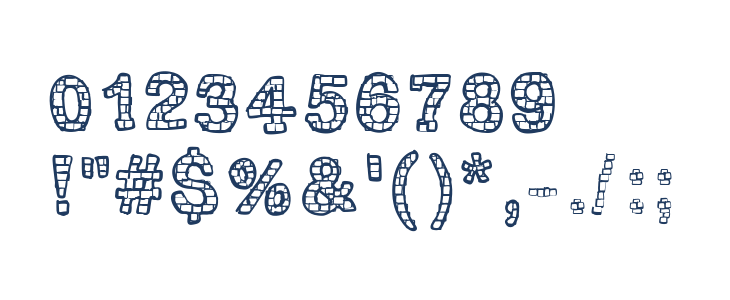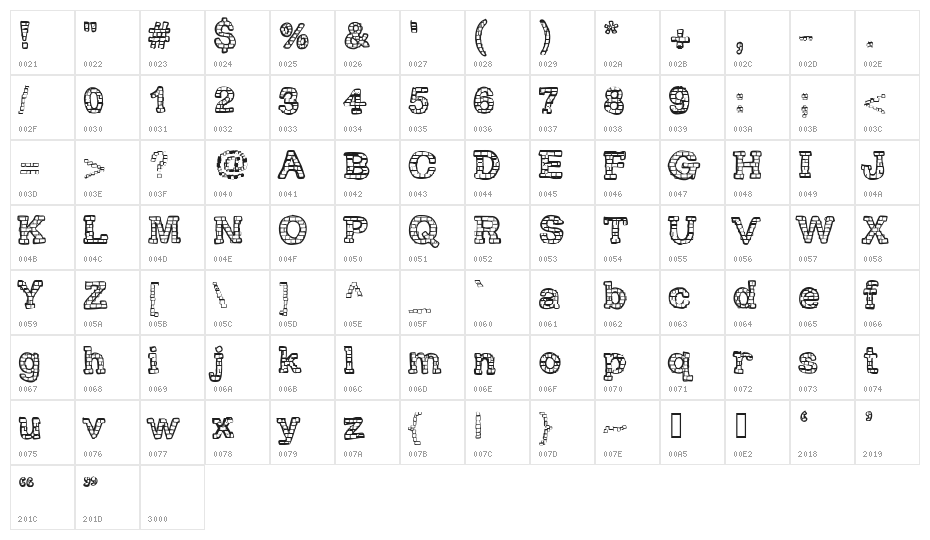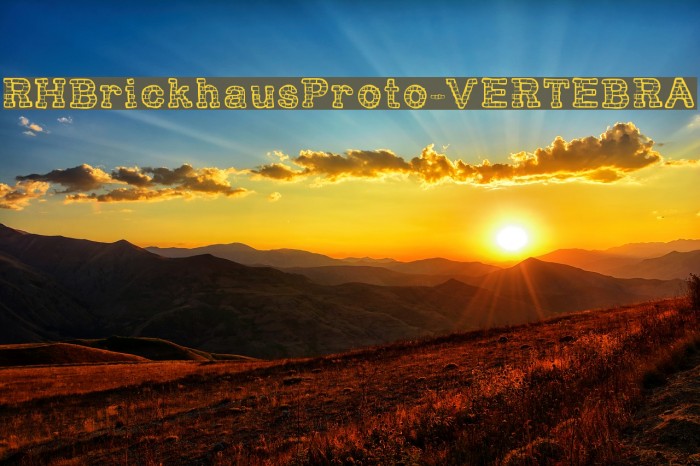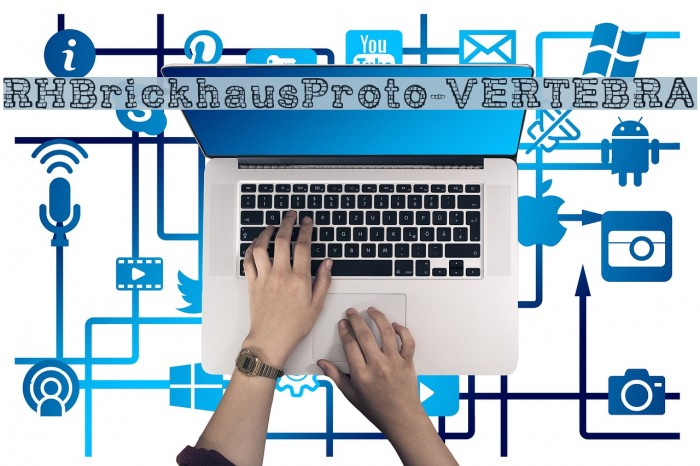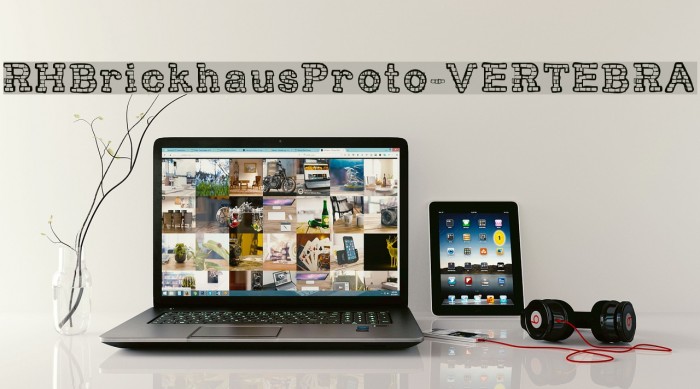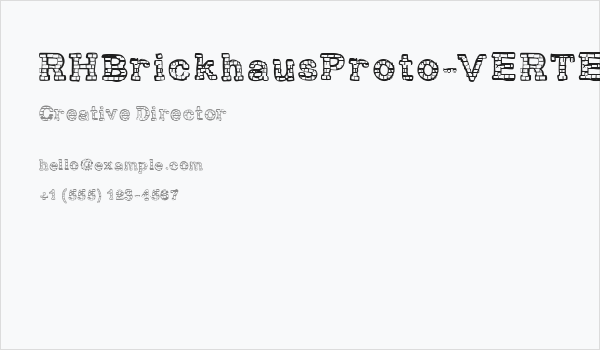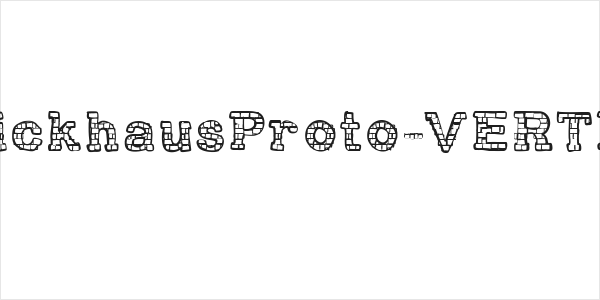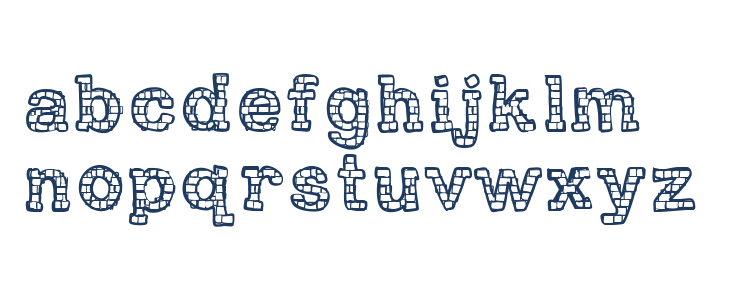
RHBrickhausProto-VERTEBRA Font
RHBrickhausProto-VERTEBRA Description
This font features a unique and playful design, reminiscent of a mosaic or brick pattern. Each character is constructed with a series of interconnected blocks, creating a textured and dimensional appearance. The letters are bold and have a consistent thickness throughout, giving them a sturdy and robust look. The font maintains a uniform structure across uppercase, lowercase, numbers, and special characters, ensuring readability while adding a decorative flair. Its distinct style makes it suitable for eye-catching designs that require a touch of creativity and fun.
Proposed ProjectsIdeal for children's book covers, playful branding, creative posters, and unique packaging designs.